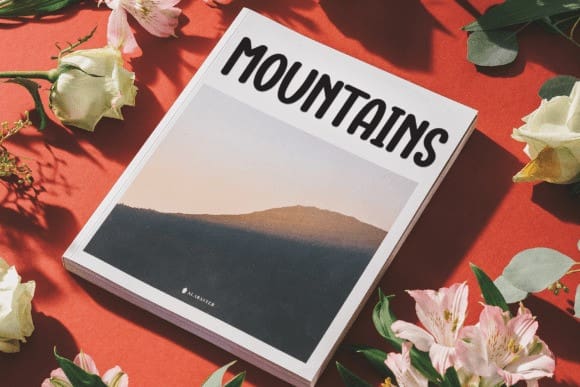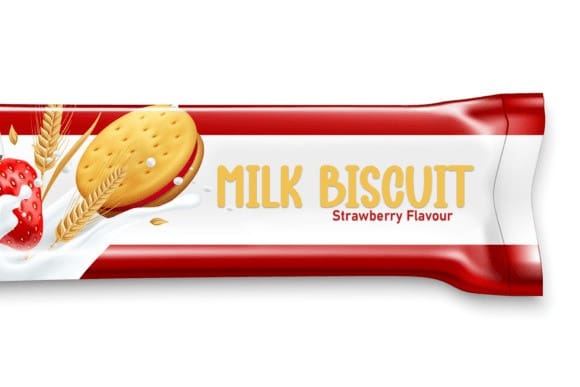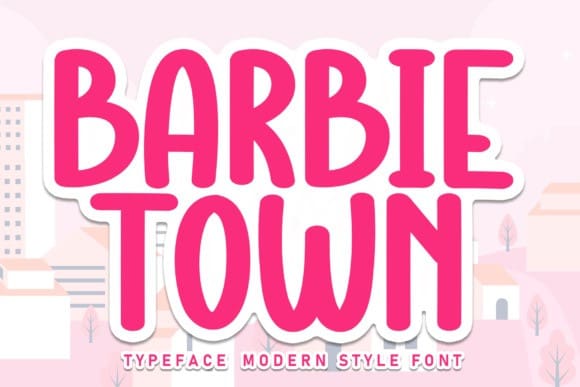
Barbie Town Font
Barbie Town Font is a sweet and delicate handwritten font. Dainty and joyful, this font will be ideal for writing wedding invitations, cards or any other design that may need a romantic, personalized touch!